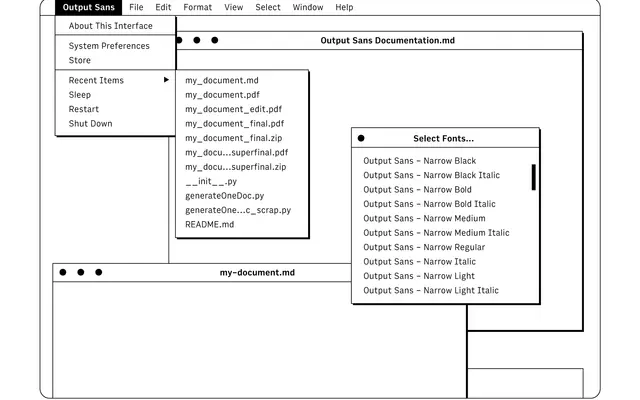
Output
David Jonathan Ross · David Jonathan Ross
A sans-serif companion to DJR's coding typeface Input, offering three aperture variants tuned for text and user interface work.
Derived from the design DNA of Input, Output softens the curves and moderates the proportions to suit readable body text and UI rather than code. Three sub-families, Sans, Sans Open and Sans Closed, let designers shift between a lyrical humanist feel and a tighter, neo-grotesque character by opening or closing terminals. The full series spans eight weights from Hairline to Black with italics throughout, plus a variable font covering weight and slant axes.
Output is positioned between humanist and neo-grotesque, with three aperture variants ranging from open and lyrical to closed and vertical-terminated, rooted in the design language of DJR's coding typeface Input.